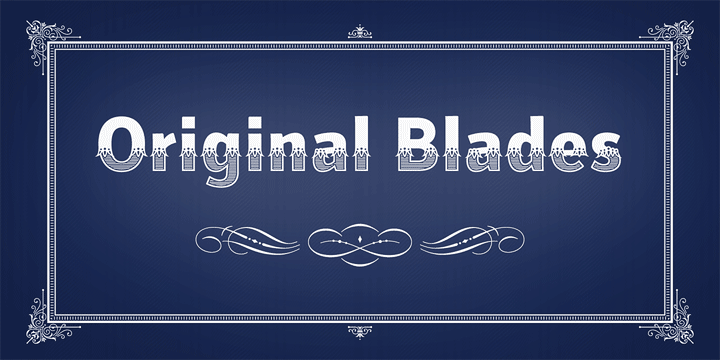
Secca Saloon Std
by astype
The Secca Saloon Std Font Family was designed by Andreas Seidel and published by astype. Secca Saloon Std contains 7 styles.
Bored by ancient Western typefaces? Try Secca Saloon. If you like the ornaments in the back, have a look at the
Designers: Andreas Seidel